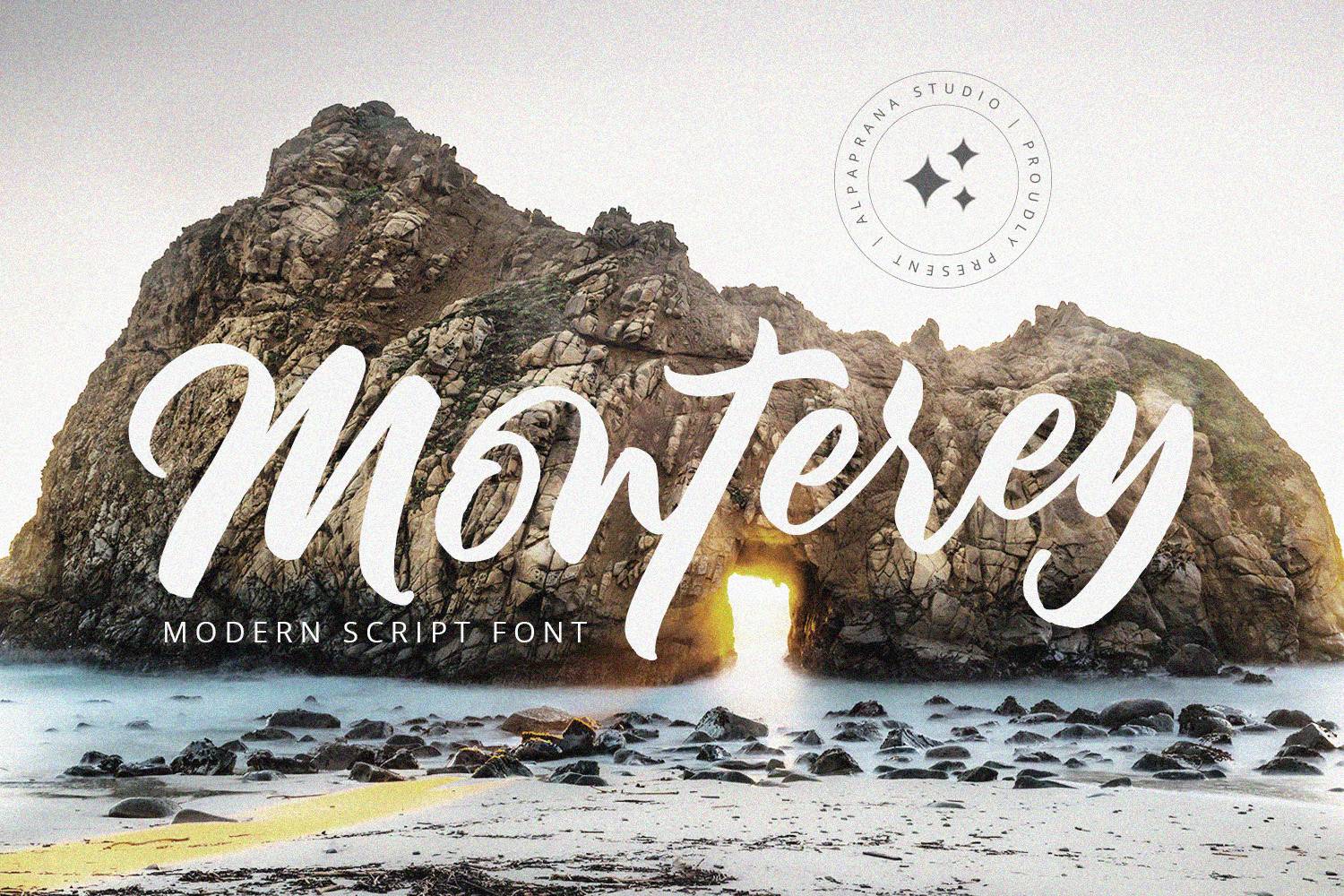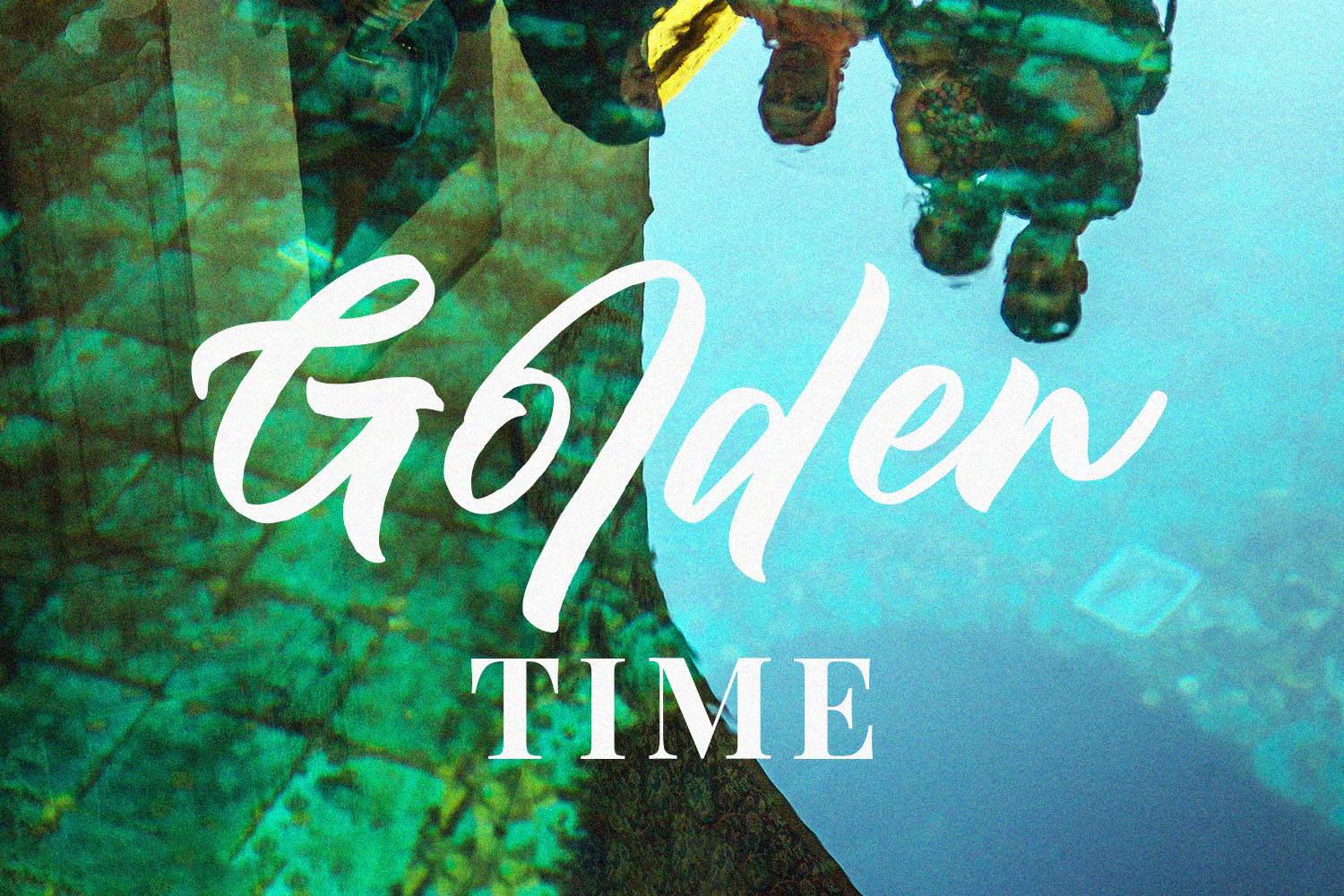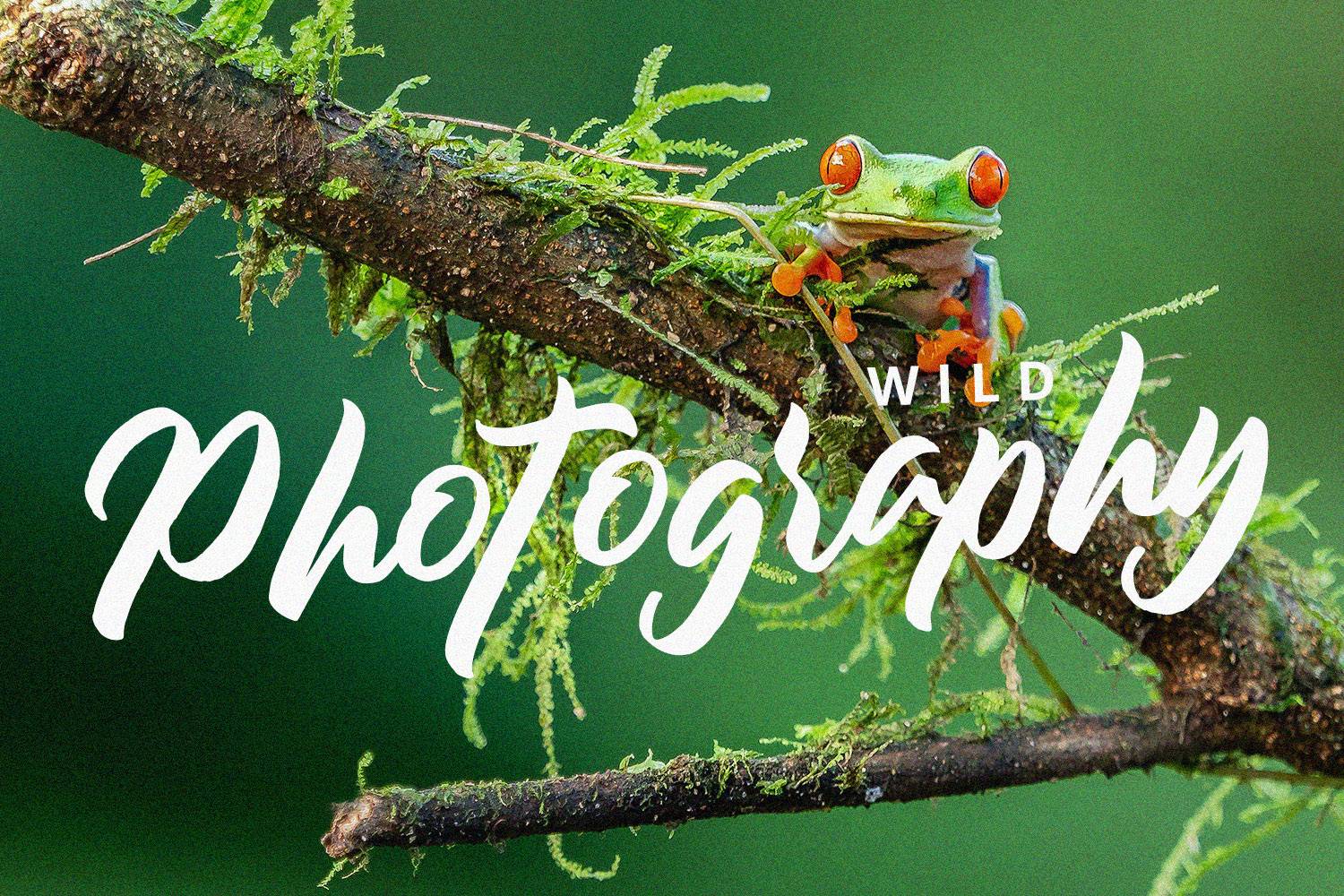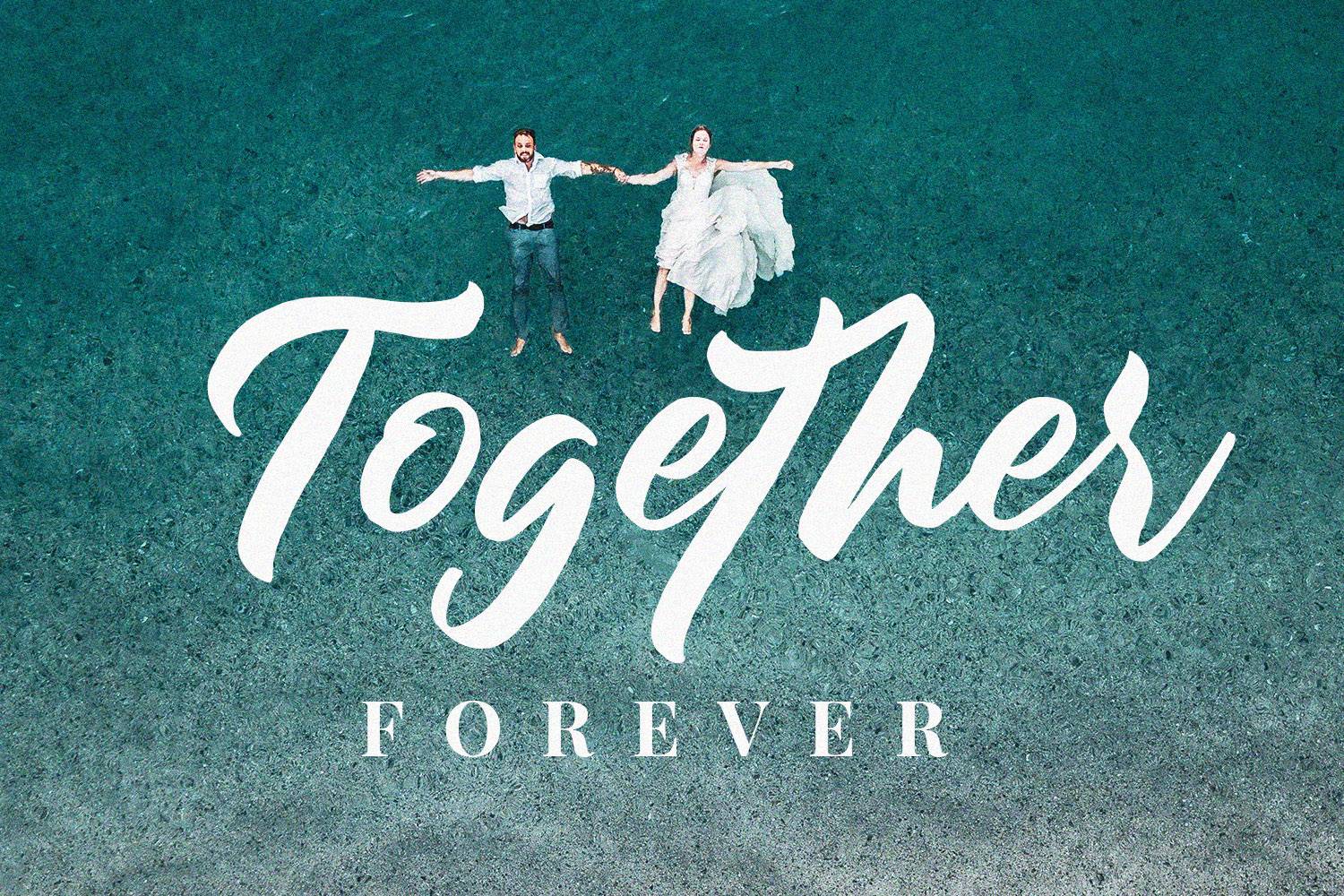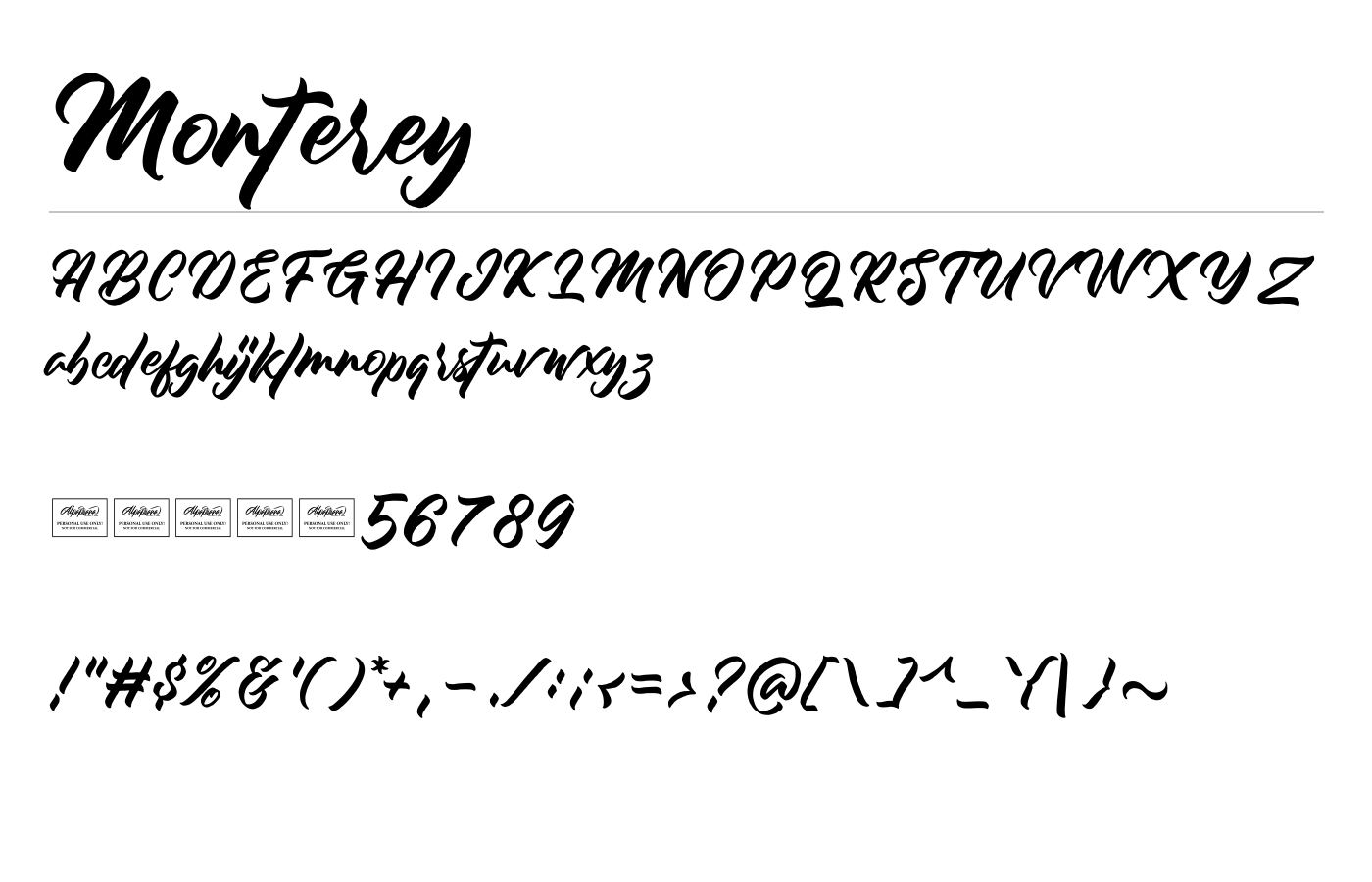
Monterey is a stylish script font with a bold and dynamic brushstroke feel that conveys energy and personality. Its flowing letterforms and varying stroke thickness make it perfect for creative logos, invitations, and headlines that need a lively yet elegant touch. This font works best in designs where a handcrafted, artistic vibe is desired to grab attention and express warmth.
Monterey Font
About Monterey Font